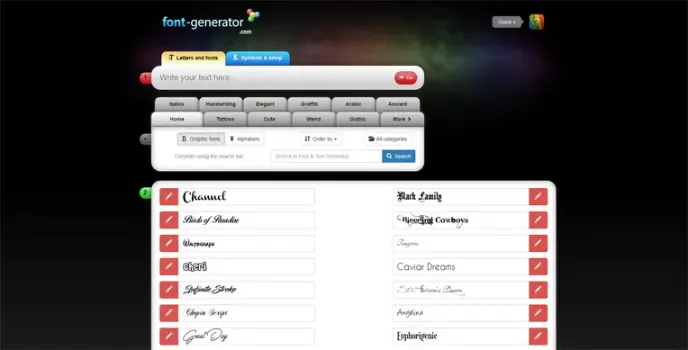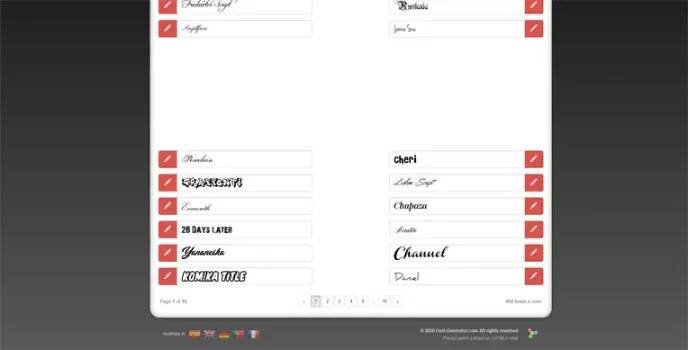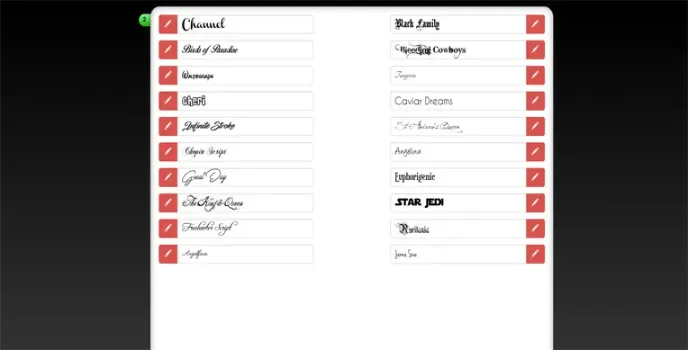
Font Generator - Inspires Creativity With The Perfect Fonts
- Provides users with various font styles
- Single Click, easy accessible
- Users can use these for various purposes
Font Generator - Accessible, Custom Design Font for Designers
Font Generator is a font downloading website offering more than 492 graphic fonts. These fonts are readily available and accessible at a single click. Users can download and save the Font and customize it by choosing its text, size, color, and background. They also avail 73 unique, styled alphabets to customize and personalize the celebration decors. Users can copy, paste, and custom design, use them in a message and share them on any social media network.
Why is Font Generator a Best Font Website?
Font Generator offers many exclusive categories of font styles, making it one of the best tattoo font website. They offer a well-structured library allowing users to easily search their preferred Font and utilize it with a single click. The Tattoo fonts are a collection of the most special fonts for tattoos, drawings, prints, and murals and are perfect for any occasion.
Handwritten fonts address personal affairs, and for the most elegant and stylish Font, users can choose the Elegant fonts category. The Graffiti fonts are inspired by graffiti and murals.
Other Font Categories
The other few exciting fonts available with Font generator are Arabic fonts, Ancient fonts, Typewriter fonts, and Disney fonts. The Fonts are a pivotal part of the site typography, so make sure to choose the right fonts to make the website legible appealing and ensure an incredible user experience.
A few of the very trendy fonts of Font Generators are Channel, Birds of Paradise, Exmouth, Yananeska, 28 Days Later, Waltograph, Angelina, Euphorigenic, Star Jedi, Ruritania, Jenna Sue, The King & Queen, Freebooter Script, and Angelface.